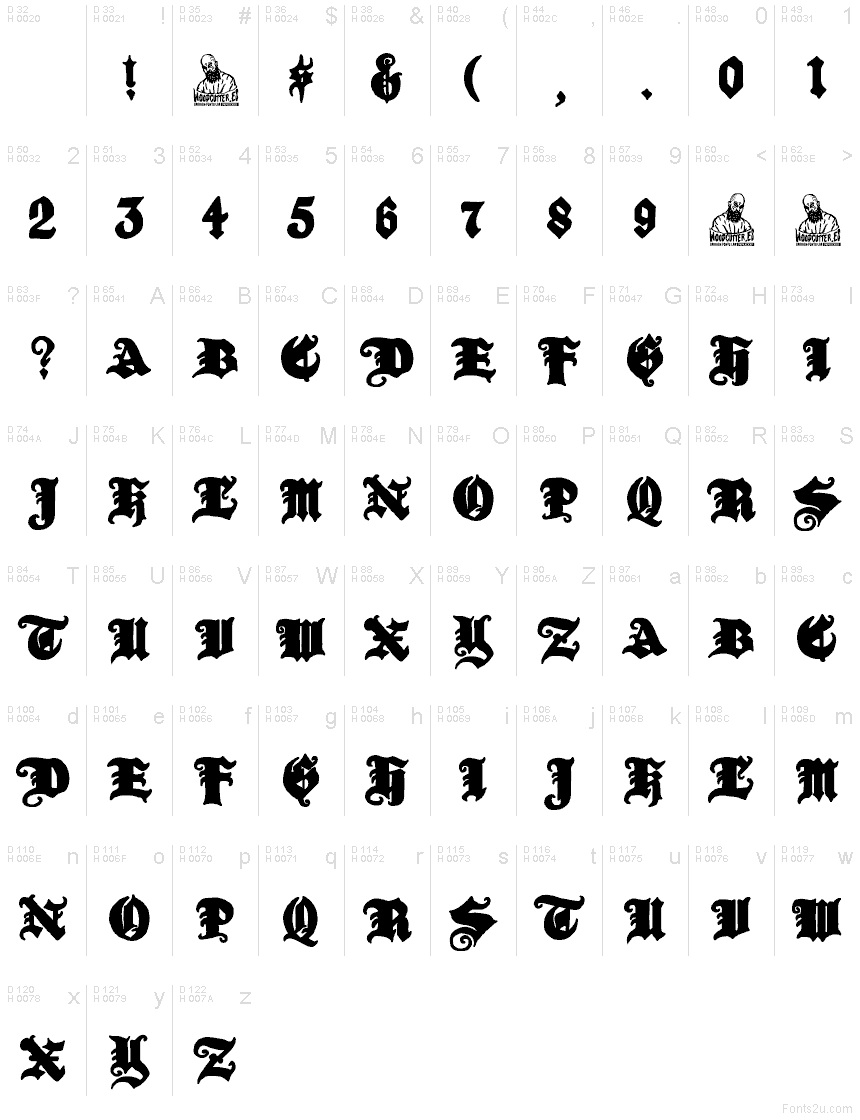
Holy Diver
Holy Diver font, designed by Woodcutter, is a bold Gothic font with a medieval style that combines strong visual impact and historical ambiance. Its expanded width and Fraktur style showcase intricate details and ornate decorative finishes, promising all your projects an impressive old-style typography experience.
A free font for both personal and commercial use, Holy Diver can be the centerpiece of designs for tattoos, movie posters, band album covers, music festivals brochures, flyers or concert tickets artworks. Fashion designers may also try it in clothing and accessories branding projects.